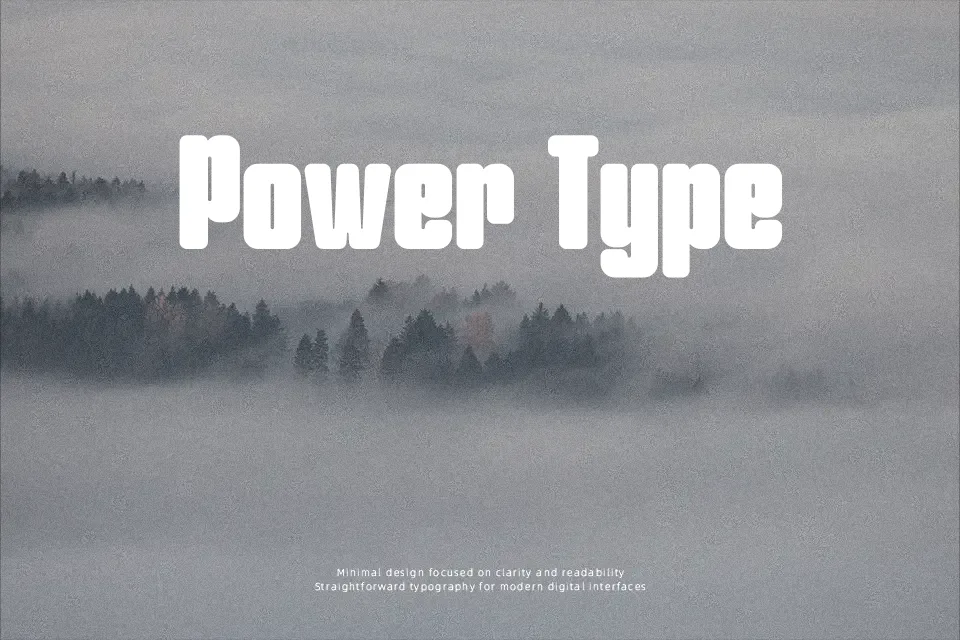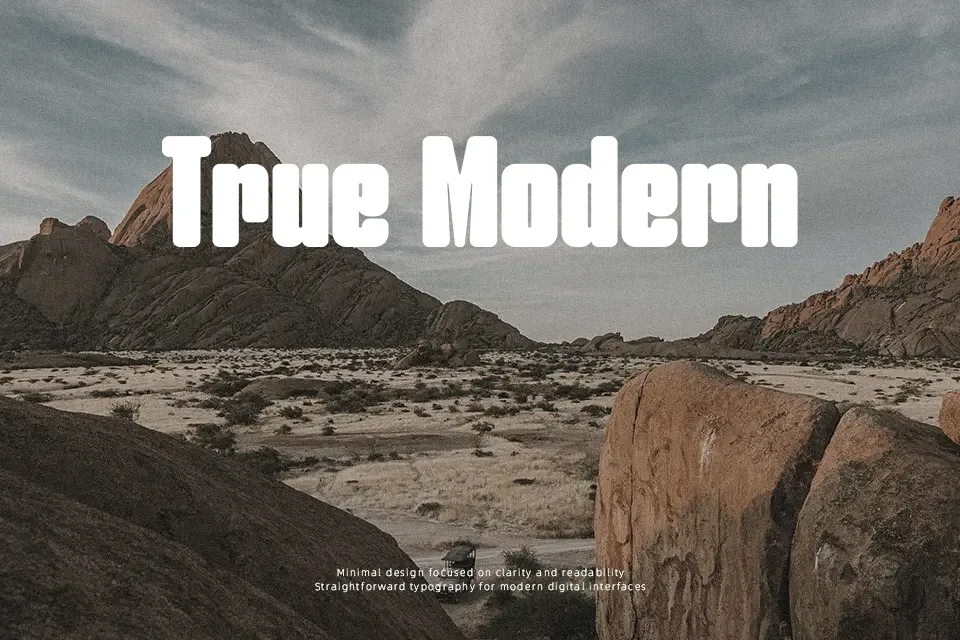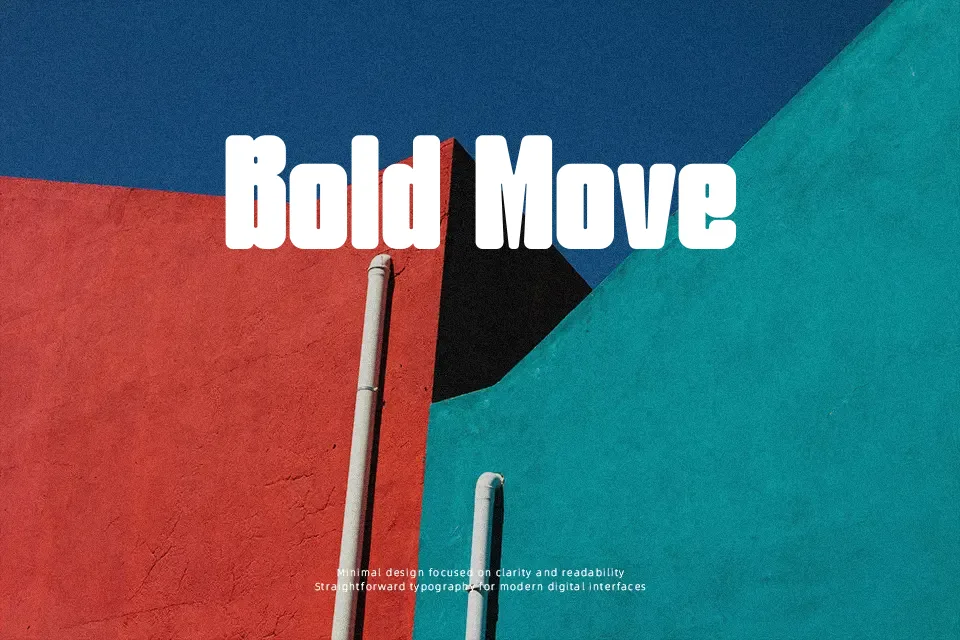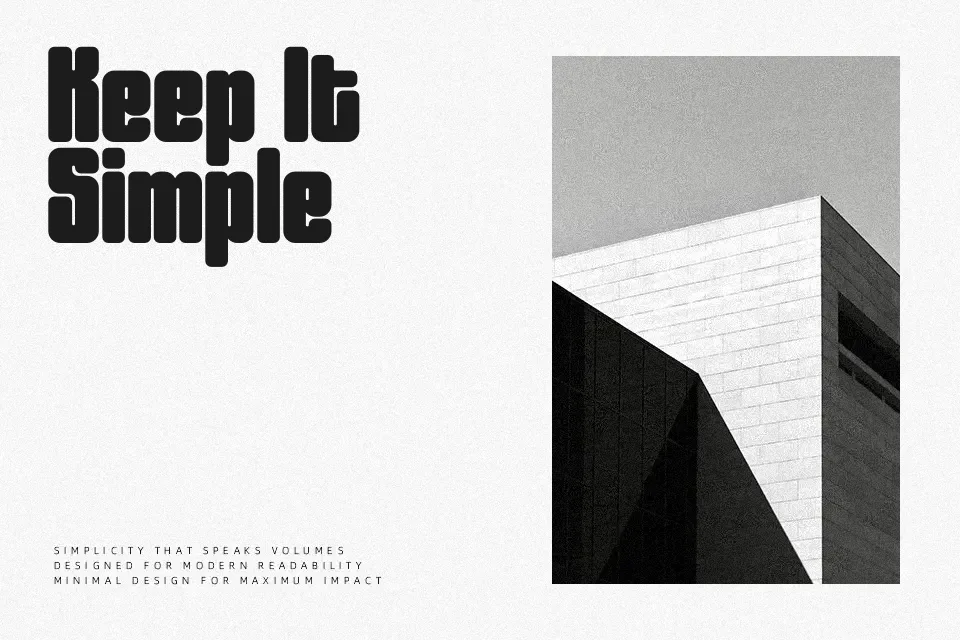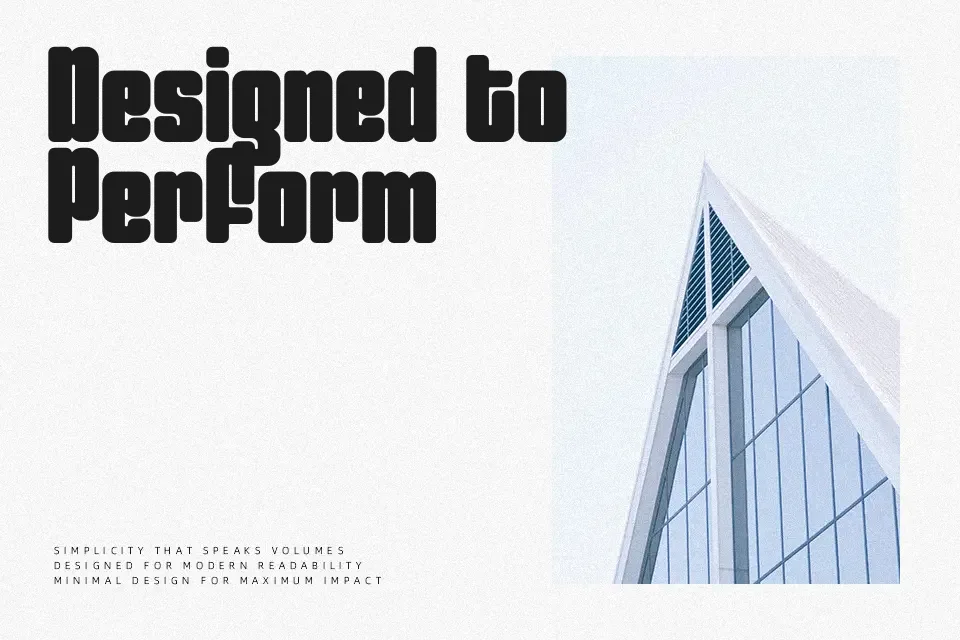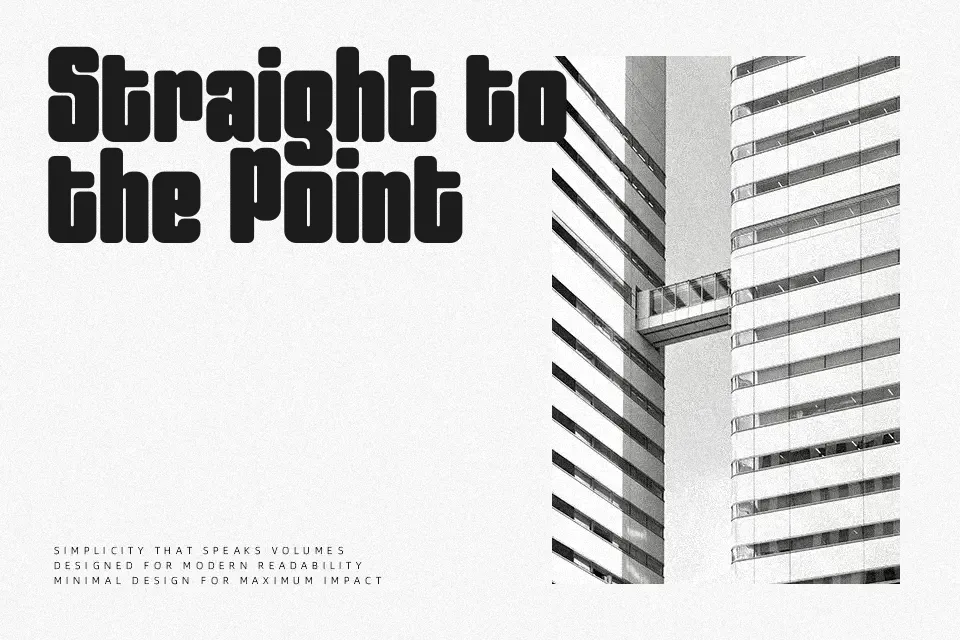
The Goodmother Font
The Goodmother Font features condensed sans-serif proportions defined by consistent vertical strokes, moderate geometric curvature, and tight character spacing designed for high-impact display settings. Balanced letterform widths help short titles maintain visual cohesion at medium to large scale, while distinct terminals ensure individual characters remain identifiable in headline arrangements. Tight kerning and compact interior counters reduce comfort during continuous paragraph reading, making dense editorial blocks impractical. The bold structure delivers strong presence on poster graphics and apparel prints where concise text commands immediate viewer attention.
Best For: vintage apparel graphics, poster title sequences, beverage can labels, merchandise branding
Not Ideal For: continuous body text, mobile interface menus, dense book paragraphs, technical data sheets
Perfect for branding, headline, and logo, with a bold and condensed style.